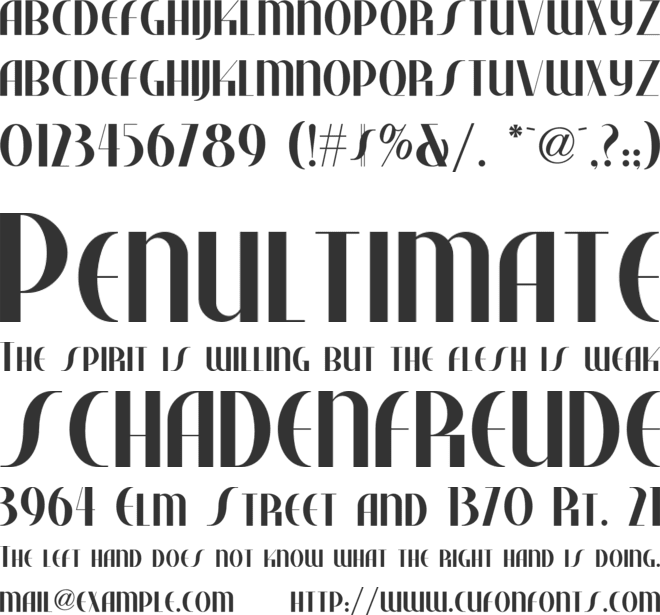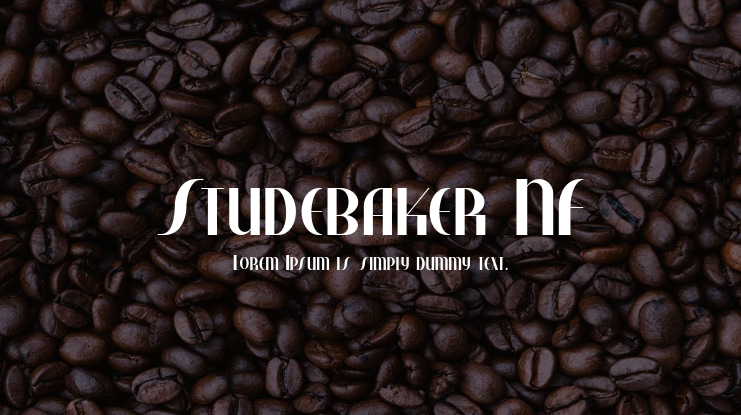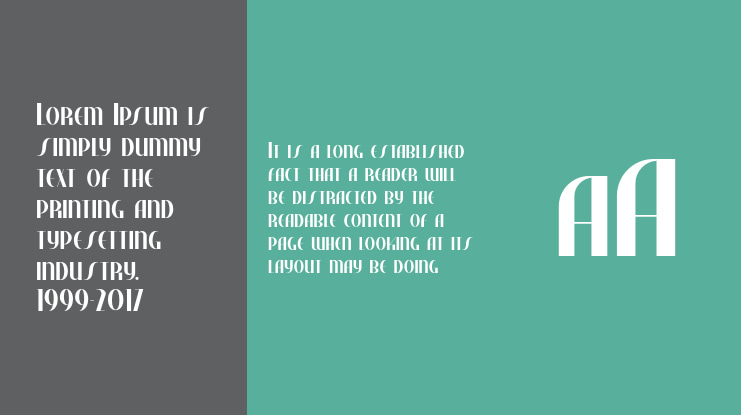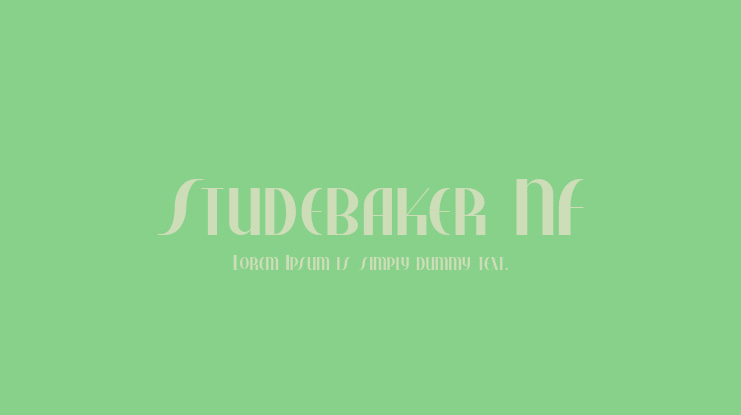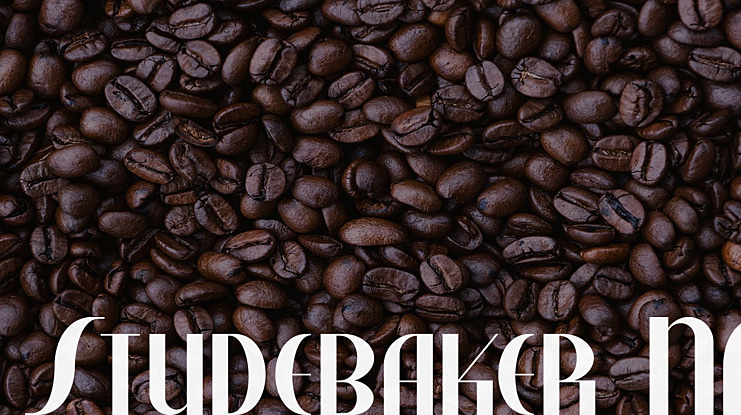
Sometimes you find the inspiration for a new font in the most unlikely places. This font was inspired by the lettering on a package for True-Mark Brand Typewriter Ribbons, circa 1938, designer unknown. Crisp, clean lines with a few tasty quirks thrown in. The name of the font — recalling a fine old automobile known for its own unconventional designs — was chosen to highlight those quirks.